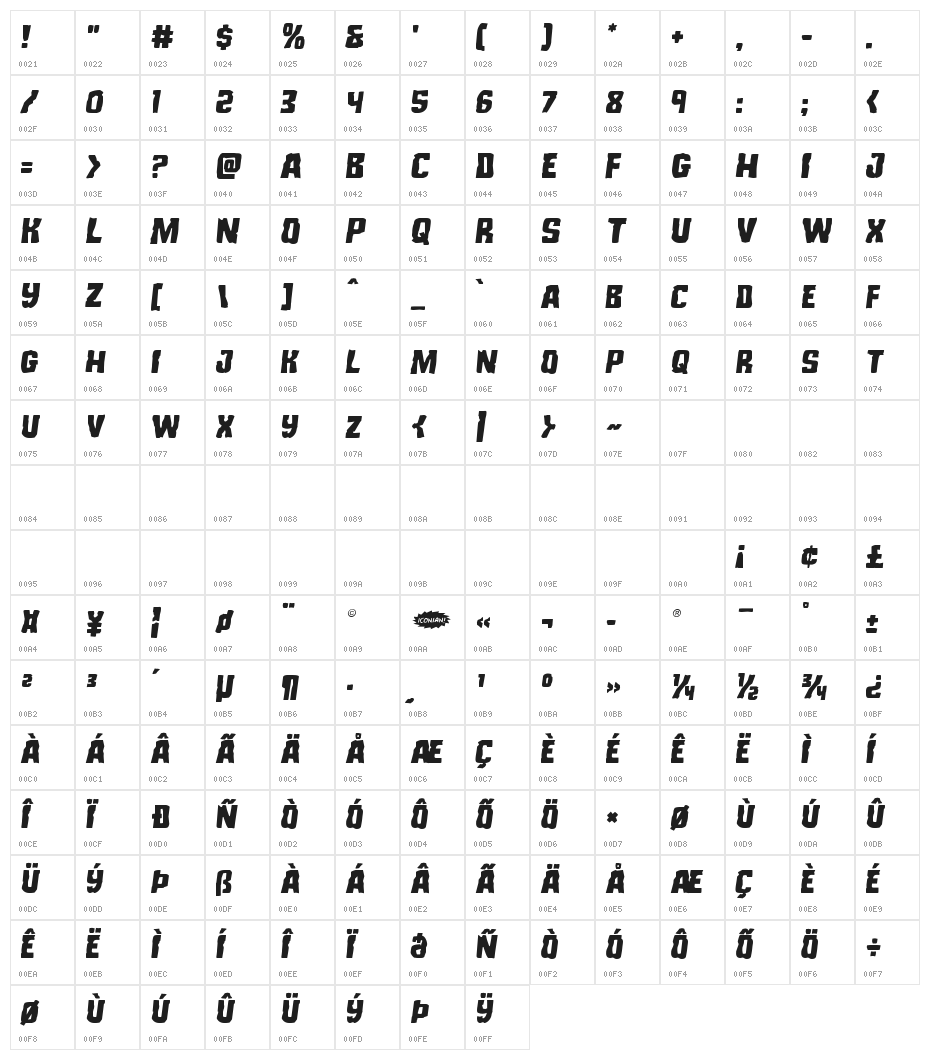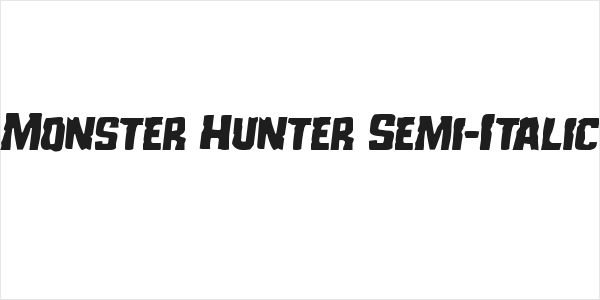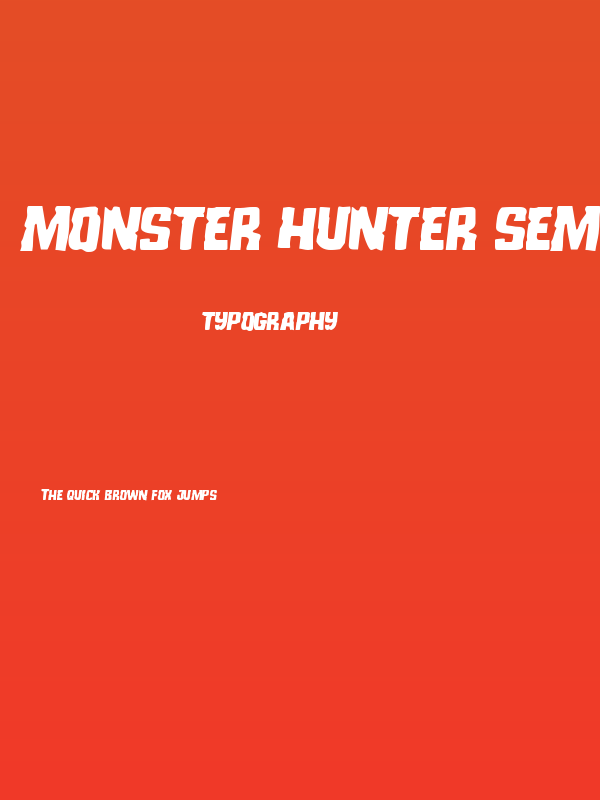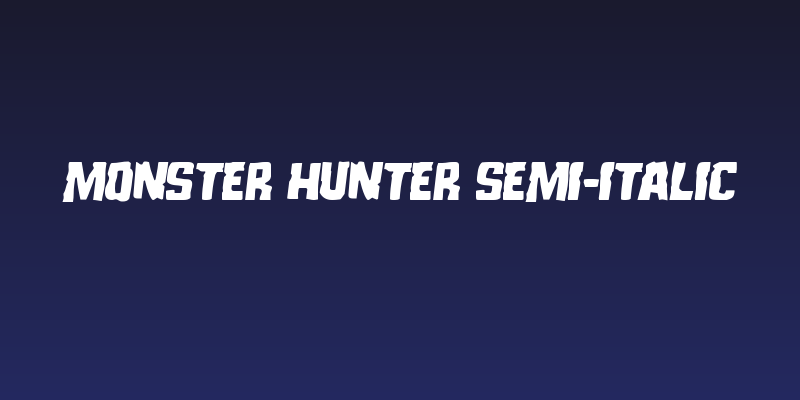
Monster Hunter Semi-Italic Font
Monster Hunter Semi-Italic Description
This font features a bold and dynamic style with a semi-italic slant, giving it a sense of movement and energy. The characters are robust and slightly condensed, with sharp edges and a distinct angularity that adds to its aggressive appearance. The uppercase and lowercase letters maintain a consistent style, while the numerals and special characters are designed to match the font's bold and adventurous aesthetic. The overall design is suitable for projects that require a strong and impactful visual presence.
| Proposed Projects | Ideal for video game titles, action movie posters, sports branding, and adventure-themed designs. |